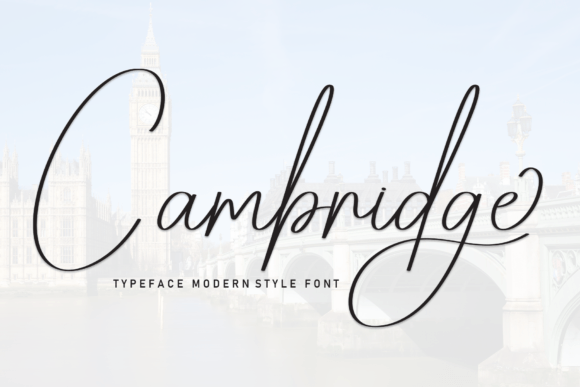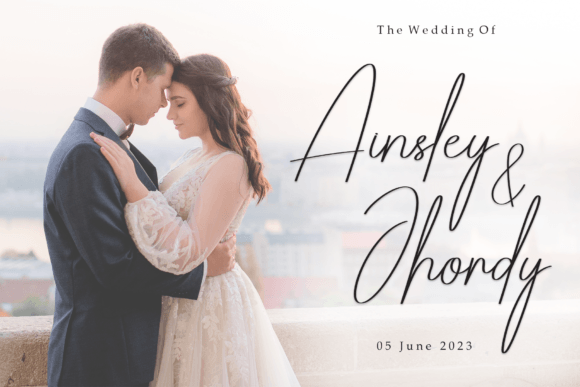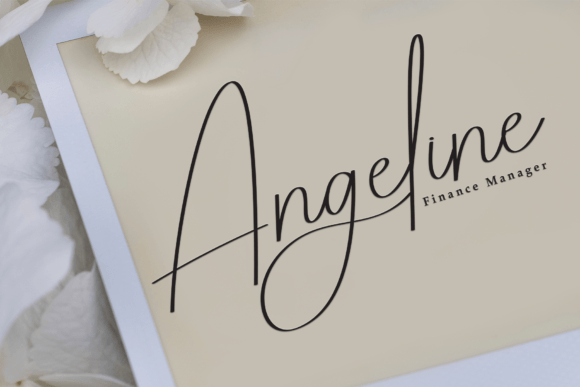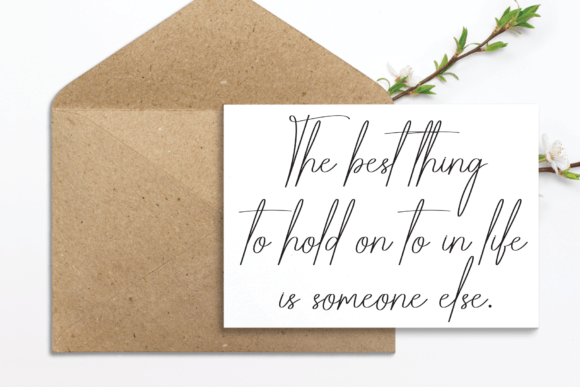
Cambridge Font: Elegant Script for Wedding & Logo Design
About the Cambridge Font
Elevate your designs with Cambridge Font, a font that combines sophistication with readability. Cambridge is a sweet and cursive handwritten font. This gentle font will look gorgeous on a variety of design ideas. It will add a joyful and romantic touch to each of your projects!  Perfectly fit for branding, logo, wedding things, greeting cards, fashion, lookbook, marketing promotion, and anytime you want to look fancy and elegant but still casual.
Cambridge’s flowing forms are ideal for headlines, short text blocks on invitations or packaging, and branding elements requiring a touch of elegance and approachability. Its cursive nature, however, makes it unsuitable for body text or UI elements where readability is paramount. Long paragraphs set in Cambridge would be difficult to read.
Consider pairing Cambridge with a clean sans-serif like Montserrat for a balanced contrast, or a classic serif such as Garamond for a more traditional feel. A geometric sans-serif like Futura could also provide a modern counterpoint, enhancing Cambridge’s inherent charm.
The overall personality of Cambridge is friendly, romantic, and subtly elegant, making it a strong choice for brands associated with weddings, fashion, beauty, or artisanal products. Its gentle curves and delicate forms convey warmth and sophistication without being overly fussy.
Cambridge Font Usage Examples
Cambridge Font Example